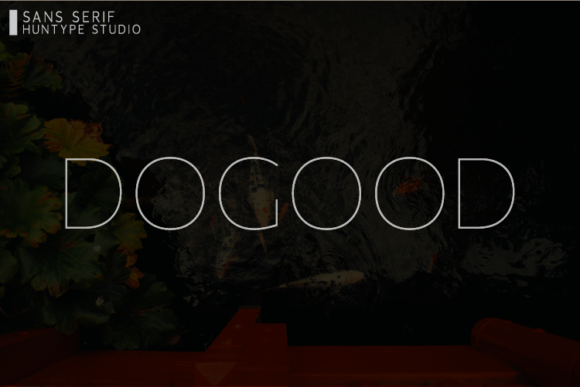
Prepare to witness the remarkable Dogood font, a typographic masterpiece meticulously crafted by the esteemed Huntype foundry. Dogood's essence lies in its sleek lines and refined curves, defining it as a sans serif typeface of unmatched elegance.
Immerse yourself in the boundless versatility of Dogood, a font that effortlessly complements a myriad of design endeavors. Let your imagination soar as you adorn your packaging with the captivating presence of Dogood, elevating your brand to unprecedented heights. Its crisp, clean lines will leave an indelible mark on your creations, instilling a sense of sophistication and allure.
The Dogood font family is a treasure trove of design possibilities, empowering you to craft captivating headlines, alluring posters, and eye-catching website interfaces. Its adaptability extends beyond the digital realm, seamlessly gracing print media and adorning physical products.
Indulge in the unparalleled charm of Dogood, a font that will transform your design aspirations into tangible works of art. Let its graceful strokes captivate your audience, evoking emotions and leaving a lasting impression.